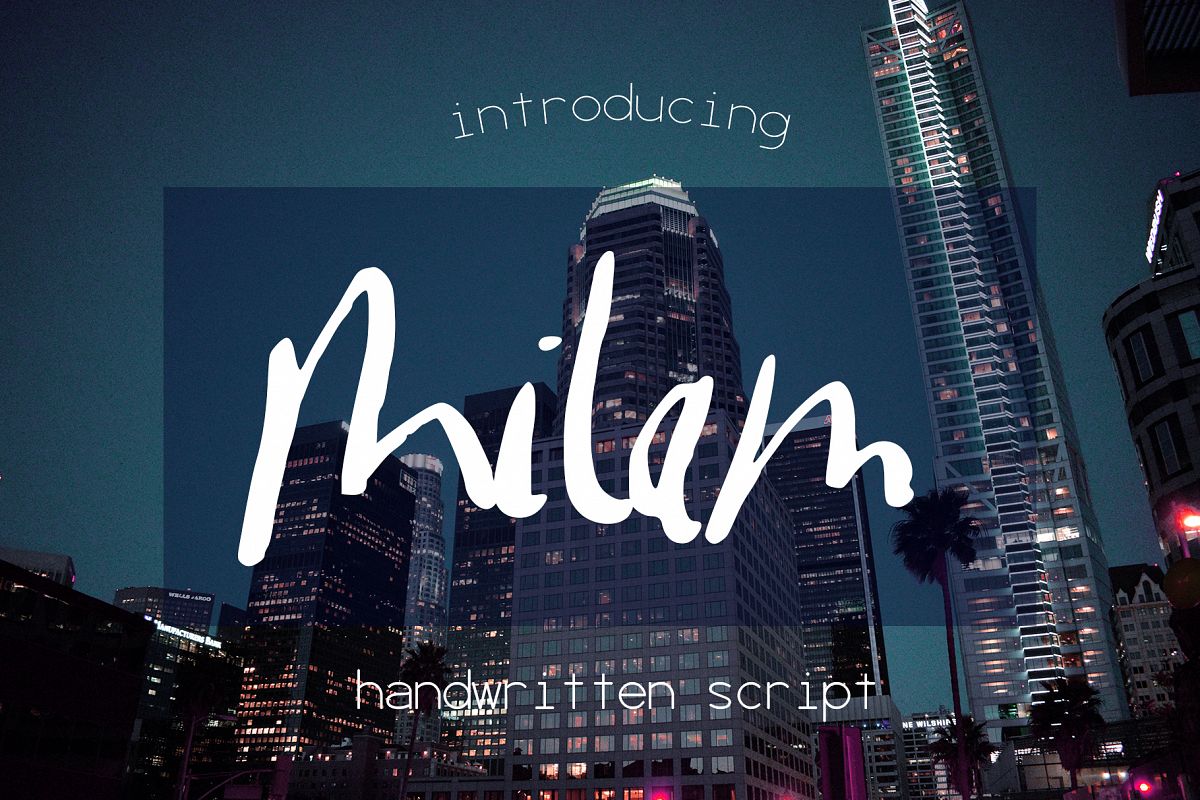
Milam Font
Introducing Milam, a gorgeous handwritten script.?
Perfect for any graphic and logo designs, wedding and birthday invitations.
Milam font contains uppercase & lowercase characters, numbers and punctuations.